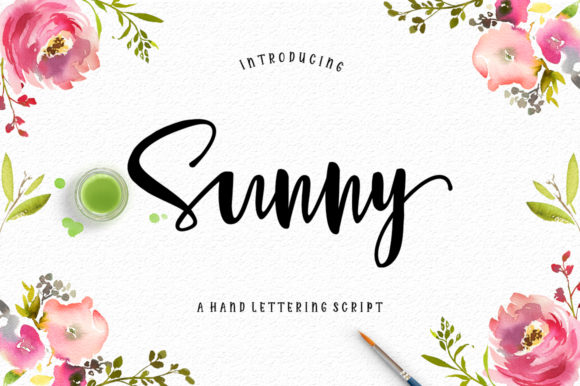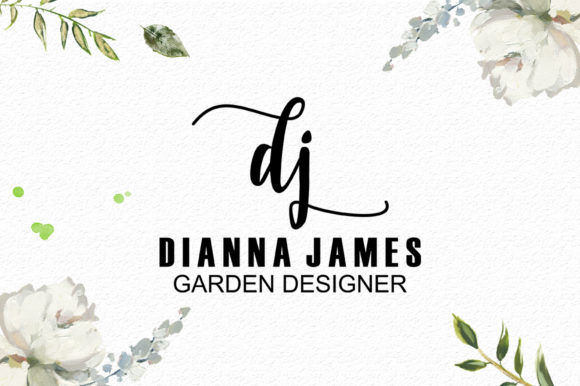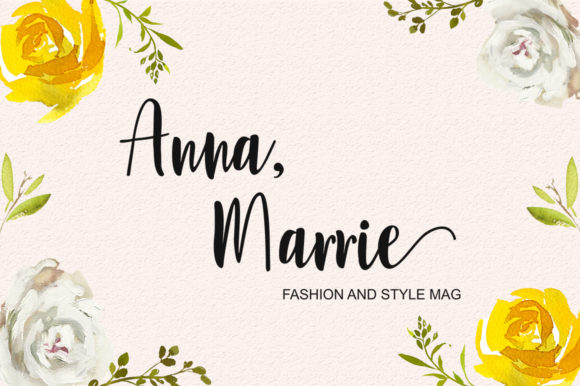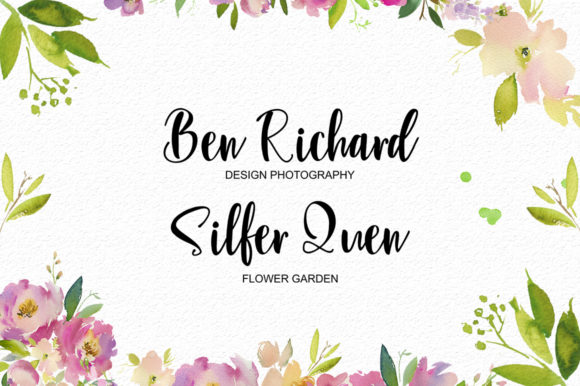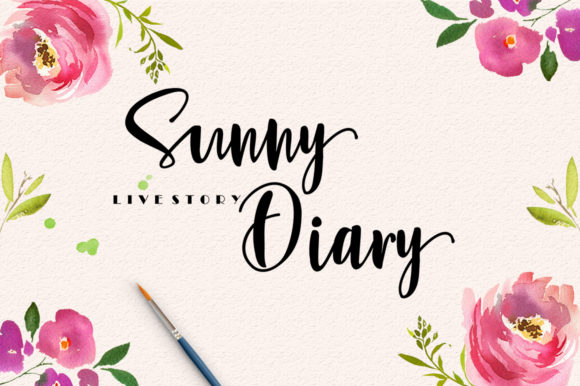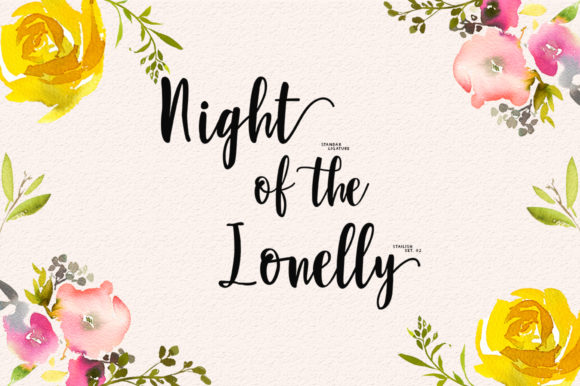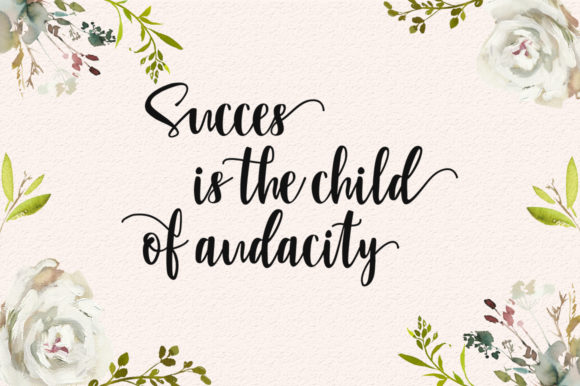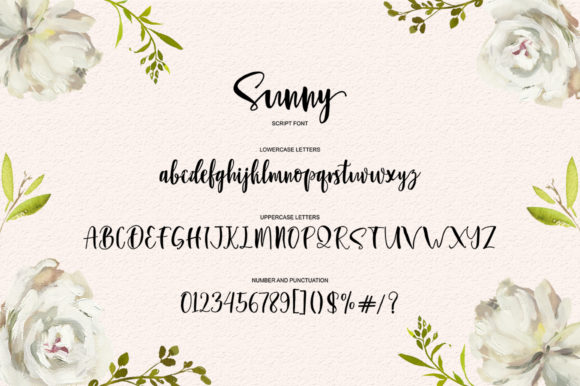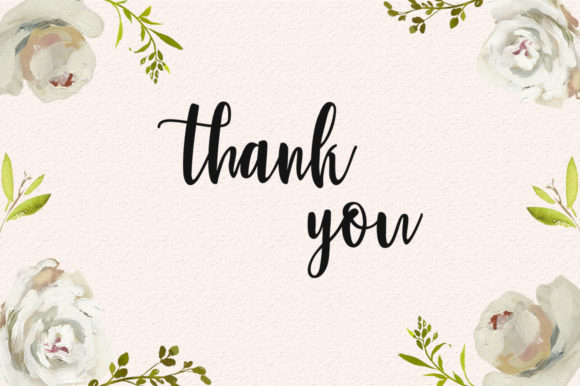
Sunny Script Font
About Sunny Script Font
The Sunny is a new modern script font with an irregular baseline. It has a trendy and feminine style which is perfect for wedding invitations, thank you cards, quotes, greeting cards, logos, business cards and more!